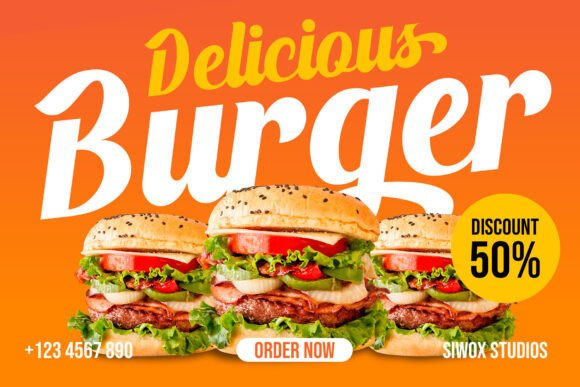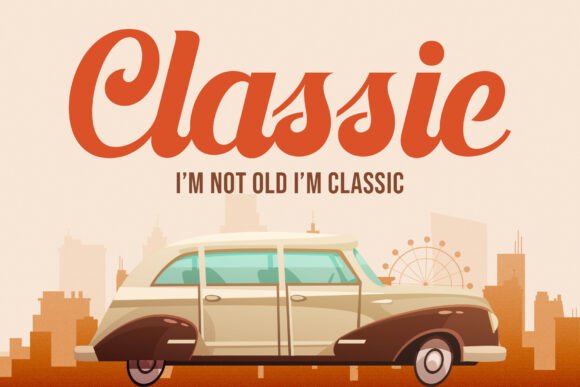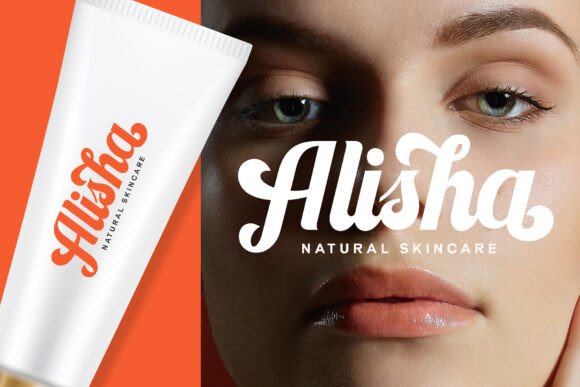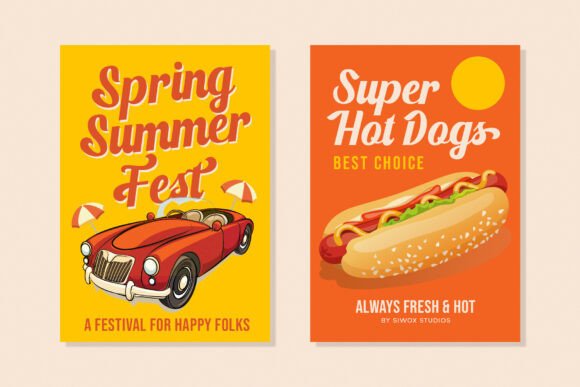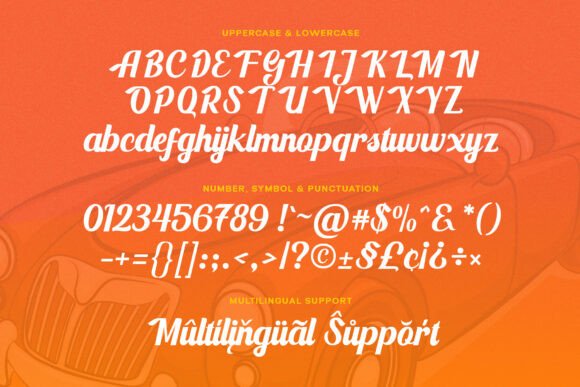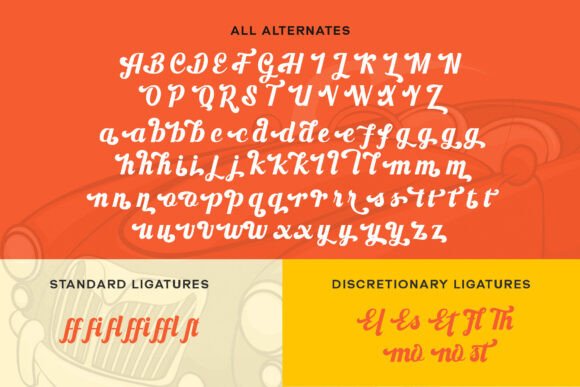
Introduction to Flahilla Font
Flahilla is a bold vintage script font inspired by bar signs, hotel signs, barbershop signs, etc.
Flahilla has a classic yet elegant feel, suitable for both modern and classic design projects Flahilla comes with beautiful alternates and ligatures.
Flahilla Font offers exceptional quality and versatility, making it a valuable addition to your design toolkit. Whether you’re creating for personal projects or commercial use, Flahilla Font delivers professional results.